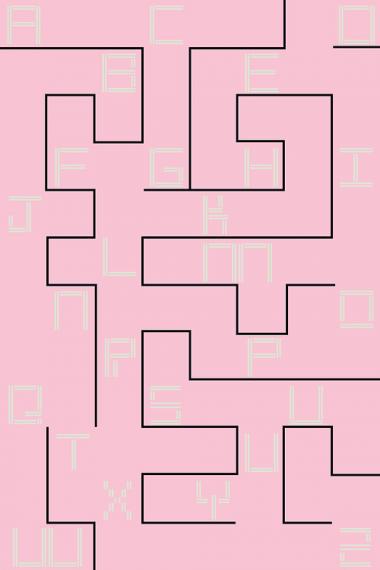
• This typeface was inspired by a specimen poster found on this Tumblr site (http://uoi-typography-spring.tumblr.com/). The typeface uses double lines all through out and features a unique X.
Specimen poster for this typeface.